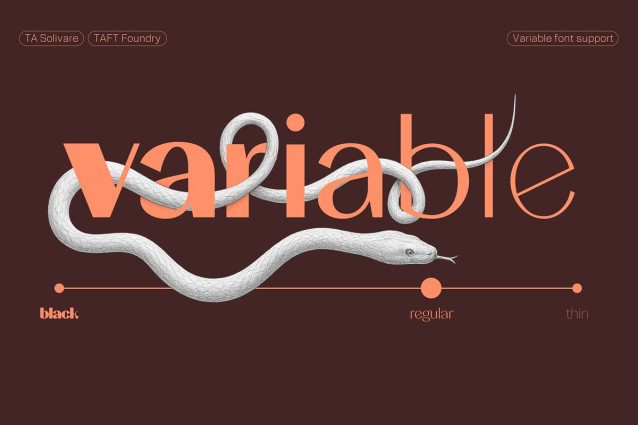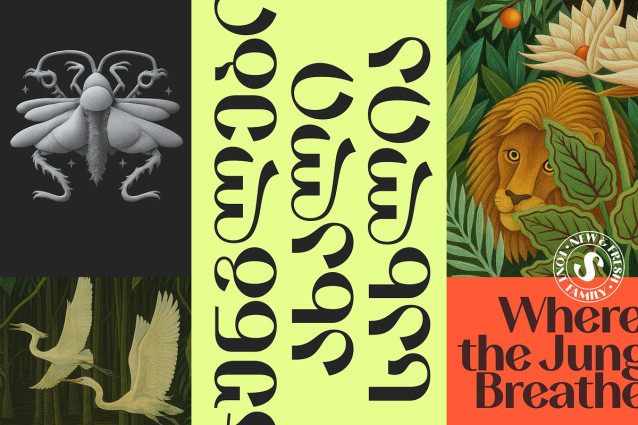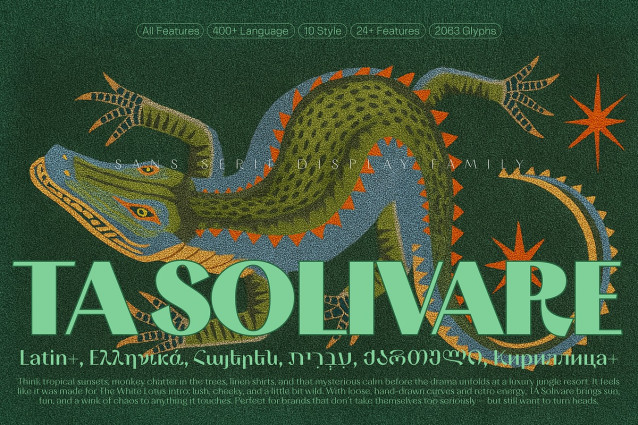
TA Solivare Font Family
TA Solivare Font Family is a high-contrast display typeface rooted in classical visual structure but stripped of traditional serif detailing. It features sharp angles, stable rhythm, and a clear sense of construction, making it ideal for prominent use in editorial headlines, brand identities, and cultural communication.
TA Solivare balances visual tension with restraint — offering a distinctive voice without excessive decoration. With six scripts and ten weights, it adapts well across multilingual and multidisciplinary contexts.